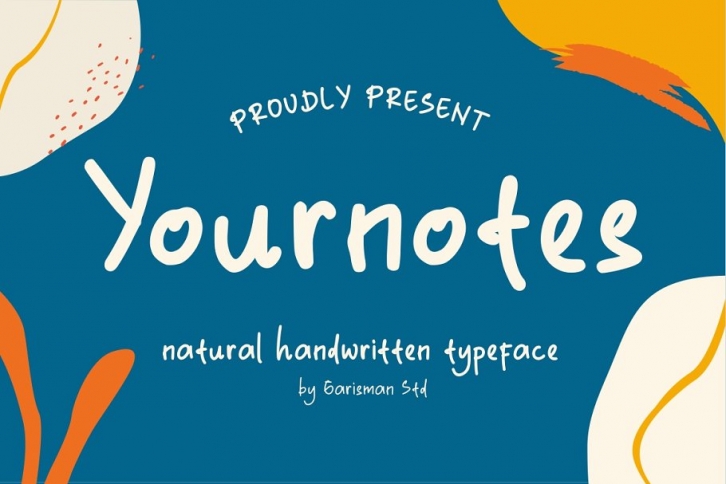
Produly Present: Yournotes || Natural Handwritten
Yournotes typeface born from original and natural handwritten in the paper with boldpoint and pen; delivering a stylish typeface which is guaranteed to add naturality styles and taste appeal to your logo designs, brand imagery, quotes, product packaging, merchandise & social media posts.
- Uppercase & Lowercase letters
-Numbers & Punctuation
- Ligature rr
- Multilingual Support with accent.